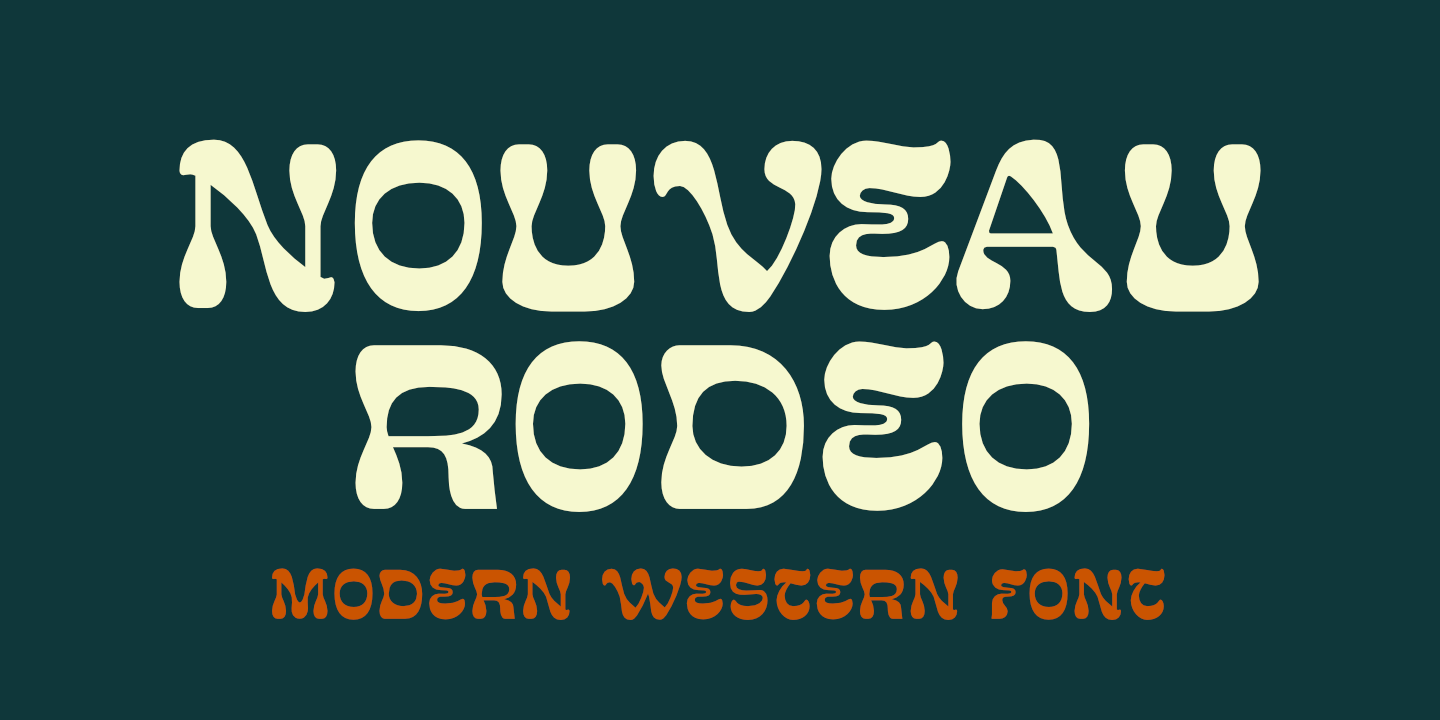
NOUVEAU RODEO
Designed by Ian Barnard, Nouveau Rodeo is a retro and western font family published by Ian Barnard.
A spirited font that lassoes the Wild West with a playful retro twist.
This uppercase typeface gallops between classic Western serifs and a groovy 70s vibe, offering a unique, fun aesthetic.
Imagine vintage rodeo posters reimagined with a wink.
Its bold letterforms capture a sense of adventure, while subtle curves and playful alternate glyphs add a touch of whimsy.
Perfect for branding that demands attention, from craft beer labels to vintage-inspired apparel, Nouveau Rodeo brings a lively, nostalgic energy to any design.
A spirited font that lassoes the Wild West with a playful retro twist. This uppercase typeface gallops between classic Western serifs and a groovy 70s vibe, offering a unique, fun aesthetic. Imagine vintage rodeo posters reimagined with a wink.
Its bold letterforms capture a sense of adventure, while subtle curves and playful alternate glyphs add a touch of whimsy. Perfect for branding that demands attention, from craft beer labels to vintage-inspired apparel, Nouveau Rodeo brings a lively, nostalgic energy to any design.
Designer Ian Barnard